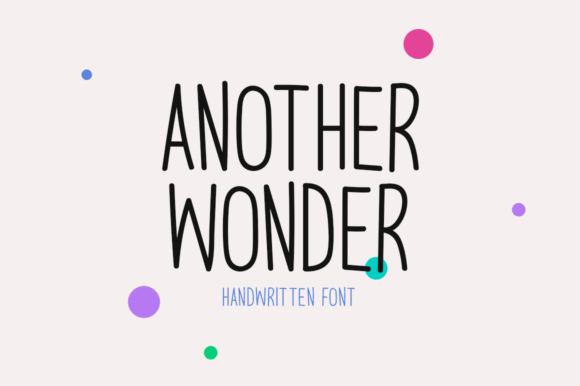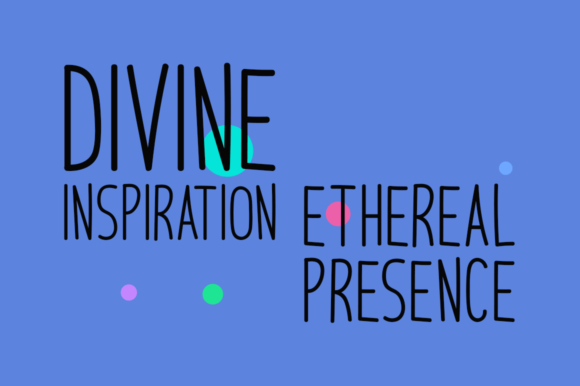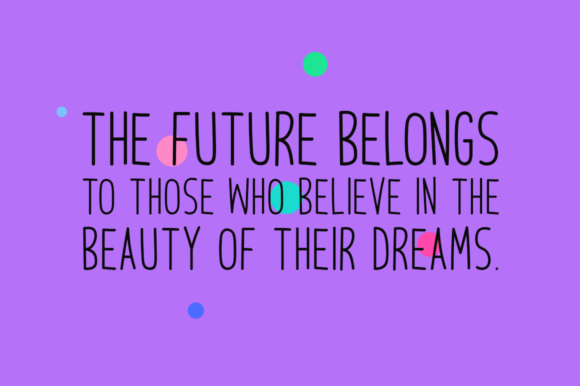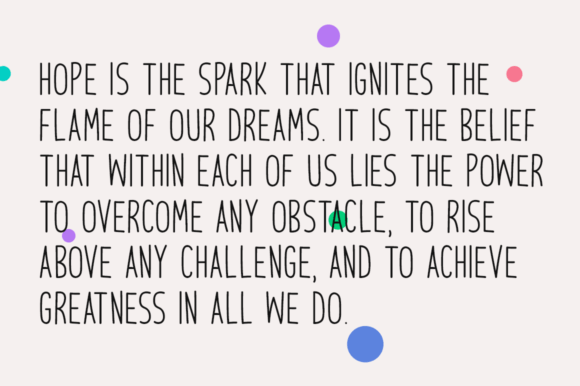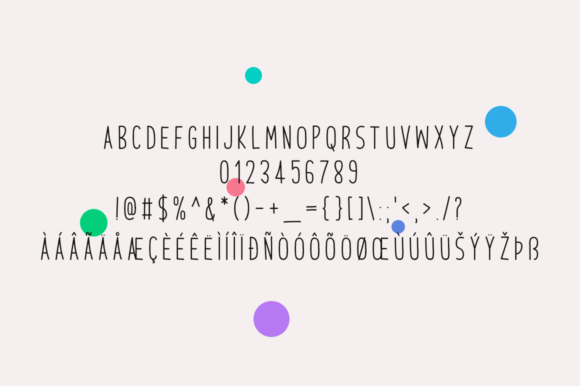
Discover the Charm of Another Wonder Font: A Sweet and Simple Handwritten Delight
In the vast universe of typography, where fonts are as diverse as the designs they adorn, Another Wonder Font emerges as a beacon of simplicity and elegance. This sweet and simple handwritten font has been making waves in the design community for its unique style, versatility, and the warm, personal touch it brings to any project. Whether you’re a seasoned designer or a crafting enthusiast, Another Wonder Font is about to become your new favorite companion for creating stunning designs.
The Unique Appeal of Another Wonder Font
Another Wonder Font stands out in the crowded world of typography due to its distinctive handwritten style. Its characters are crafted with a sense of fluidity and natural grace, making it feel both approachable and sophisticated. This balance is no easy feat, but Another Wonder achieves it effortlessly, making it incredibly fitting for a large pool of designs. From heartfelt greeting cards to captivating blog posts, and from trendy social media graphics to elegant branding materials, this font adapts with ease.
One of the key advantages of Another Wonder Font is its versatility. Its sweet and simple nature allows it to blend seamlessly into various design contexts without overpowering them. For designers and crafters, this means that you can use Another Wonder Font across a wide range of projects, including:
- Digital Content: Enhance your blog posts, social media updates, and website content with a personal touch that draws readers in.
- Print Materials: Create beautiful stationery, eye-catching posters, and charming flyers that stand out.
- Branding and Identity: Develop a unique brand voice and visual identity that speaks to your audience on a more personal level.
- Crafting Projects: Add a professional yet heartfelt touch to your handmade crafts, such as journals, cards, and DIY decor.
Why Designers and Crafters Love Another Wonder Font
Designers and crafters alike are drawn to Another Wonder Font for several reasons:
- Easy to Read: Despite its handwritten nature, Another Wonder Font boasts excellent readability, making it perfect for both digital and print applications.
- Highly Customizable: Experiment with different colors, sizes, and styles to match your project’s unique needs and aesthetic.
- Emotional Connection: The font’s warm and inviting style helps create an emotional connection with your audience, making your designs more impactful.
Another Wonder Font is more than just a typeface; it’s a tool for designers and crafters to infuse their projects with a sense of warmth, simplicity, and elegance. Its unique style and versatility make it an excellent choice for a wide range of applications, from digital content to print materials and crafting projects. By incorporating Another Wonder Font into your design toolkit, you’ll be well on your way to creating captivating and memorable designs that resonate with your audience.